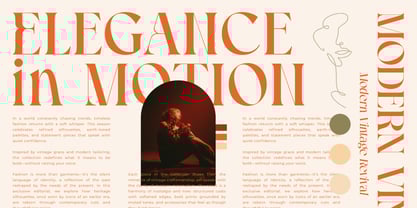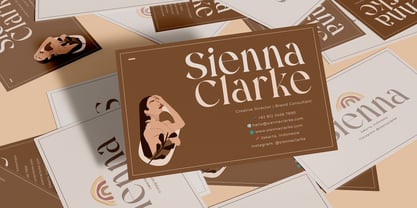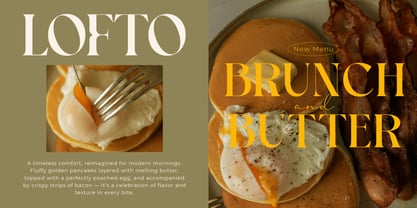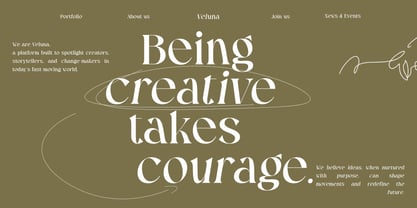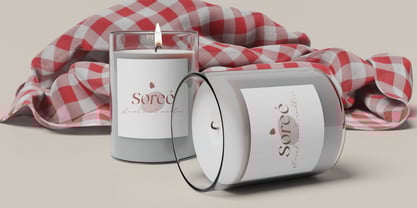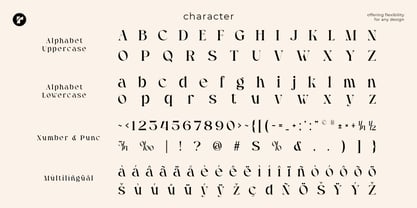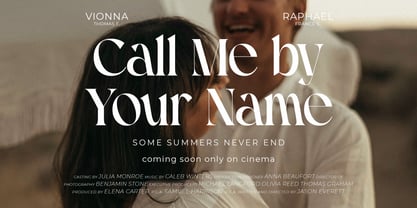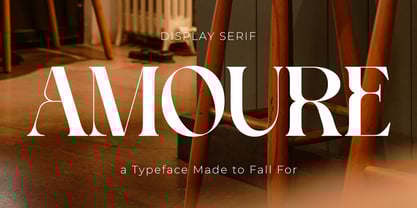
Amoure
by Jafar07
The Amoure Font Family was designed by Bakhrudin Ja'far and published by Jafar07. Amoure contains 2 styles and family package options.
Amoure is a sophisticated display serif typeface that encapsulates elegance, romance, and refinement. With its graceful curves, sharp serifs, and high-contrast strokes, this typeface seamlessly combines timeless beauty with contemporary style. It is particularly suited for branding, editorial headlines, fashion magazines, luxury packaging, wedding invitations, and striking logos. Amoure's unique balance of delicacy and boldness ensures versatility, making it perfect for romantic themes and chic lifestyle brands alike. This typeface captures the essence of love, sophistication, and prestige, providing designers with an elevated and memorable option. For those looking to add emotional warmth and visual impact to their designs, Amoure is an exquisite choice that stands out.
A little from my personal design & background: My name is Bakhrudin Ja'far, I live in Malang, Indonesia. I am currently completing my degree in visual communication design and I have worked as a lettering artist and logo designer for many years. I finally started my studio called roocspace creative lab (jafar07) Studio a few months ago and with my team made my letters into typography.